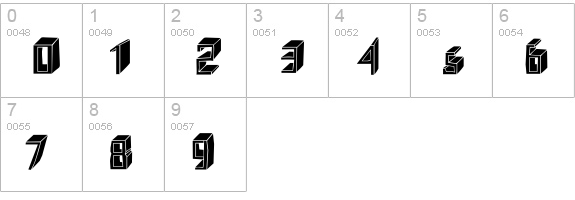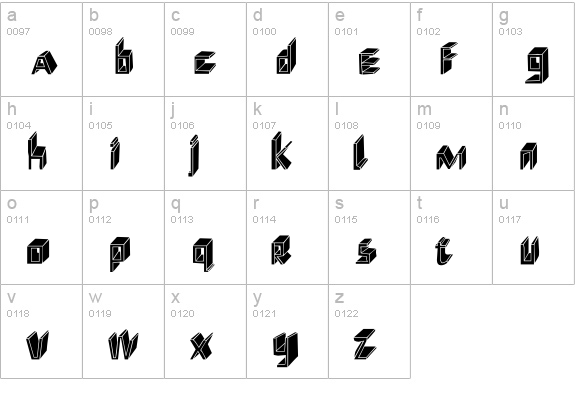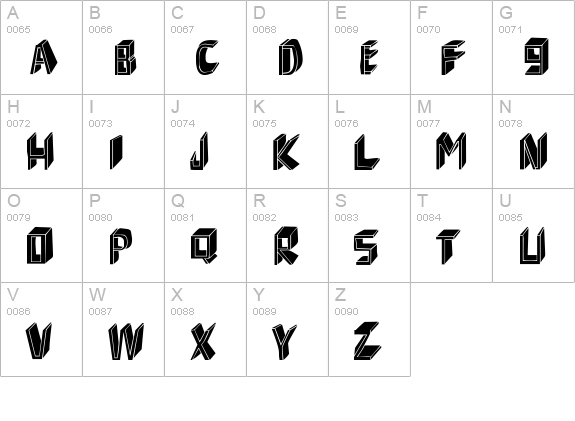
ShoeRepairs-Knockout Font Details
ShoeRepairs-Knockout font is a remarkable and versatile typeface that will surely make a lasting impression. Its bold and impactful design captures attention and adds a touch of elegance to any project. This font is perfect for signage, headlines, branding, and much more. With its clean lines and sharp edges, ShoeRepairs-Knockout font exudes professionalism and sophistication. Its unique and stylish characters are carefully crafted to ensure legibility while maintaining a sense of creativity. Whether you're designing a logo, creating a poster, or working on a website, this font will effortlessly enhance your overall aesthetic. One of the best features of ShoeRepairs-Knockout font is its versatility. It can be easily adapted to fit various design styles and themes, making it a go-to choice for designers and creatives alike. From modern and minimalistic to bold and edgy, this font has the ability to complement any visual concept. What sets ShoeRepairs-Knockout font apart is that it is freely available to download at FontsMarket.com. This means that you can access this incredible font without any cost, allowing you to elevate your designs without breaking the bank. FontsMarket.com provides a wide range of high-quality fonts, and ShoeRepairs-Knockout font is no exception. So, whether you're a professional designer or a hobbyist, ShoeRepairs-Knockout font is a must-have in your font library. Its stylish and versatile nature, coupled with its availability for free download at FontsMarket.com, makes it a truly knockout choice for all your design needs. Get your hands on this font today and unleash your creativity like never before.